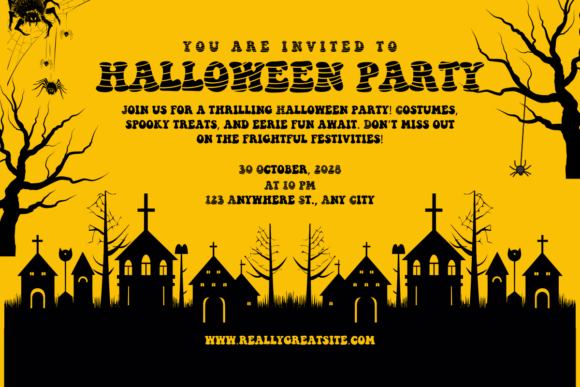
Mummy Wrap Halloween Font
Introducing Mummy Wrap Halloween, an invocatively ornamental typeface designed for versatility. Its whimsical strokes lend a visual interest to your note-taking, diary writing, and greeting card crafting, adding an extra layer of creativity to your everyday tasks.
Yet, its potential extends far beyond – its unique styling can magnify the impact of banner designs, give a novel dimension to your digital content, make everyday items like mugs and shirts artistically engaging, and bring a fresh perspective to your stationery.
Harness its potential to visually enhance your social media posts or create striking designs for any purpose under the sun! Mummy Wrap Halloween can add a pinch of playful charm to anything it touches.